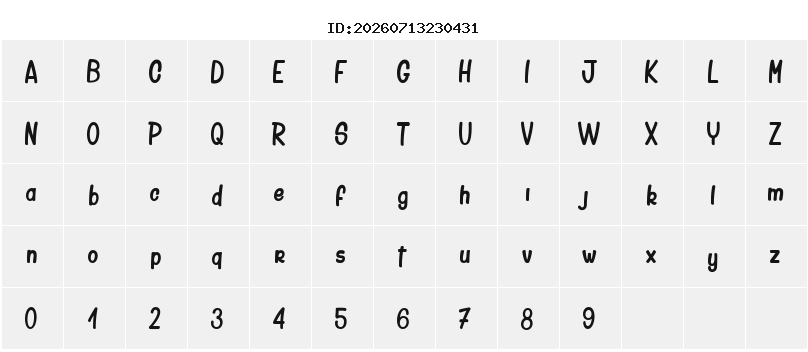
• Font Name: CAMELTOE kalypse
• Font ID: dcoxyMedinaGregory: CAMELTOE kalypse: 2016
• Full Font Name: CAMELTOE kalypse
• PostScript Name: CAMELTOEkalypse
• Character Count: 183
• Designer: dcoxy Medina Gregory
• Manufacturer: dcoxy Medina Gregory
About CAMELTOE kalypse.ttf
CAMELTOE kalypse.ttf is a modern, elegant sans-serif font designed for ultimate readability and visual harmony. Perfect for branding, headlines, web design, and print materials.